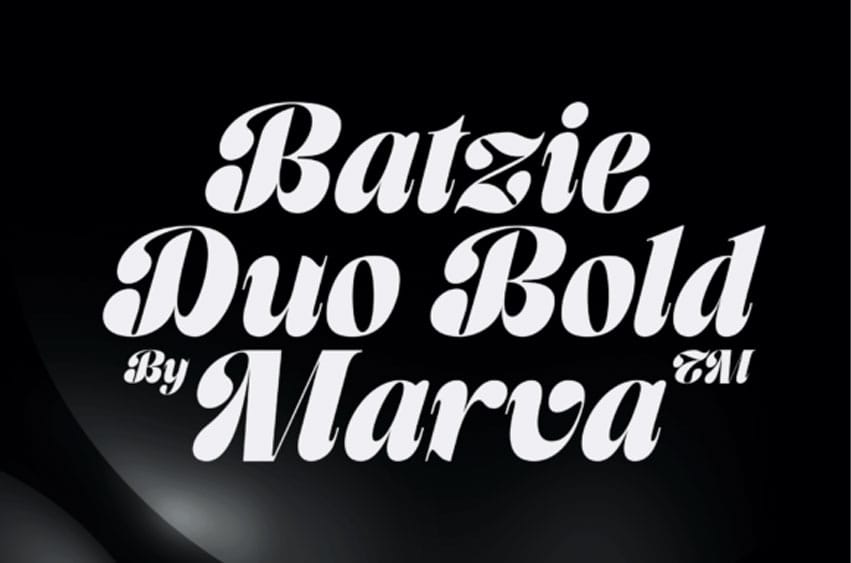
Batzie Font is a refined and modern serif display font that radiates elegance, femininity, and grace. Its flowing letterforms are shaped by gentle curves, delicate terminals, and soft transitions that echo the rhythm of graceful handwriting. Carefully balanced strokes—neither too thin nor too bold—ensure exceptional legibility while maintaining a sophisticated aesthetic.
Each character feels intentionally crafted, with subtle flourishes that lend a romantic, whimsical charm without overwhelming the design. The slightly elongated ascenders and descenders contribute to a light, luxurious feel, while the italic style introduces graceful forward movement and expressive personality.
Perfect for high-end branding, beauty and fashion identities, wedding stationery, elegant packaging, and editorial quotes, Batzie adds a sense of modern romance and timeless allure to any project.